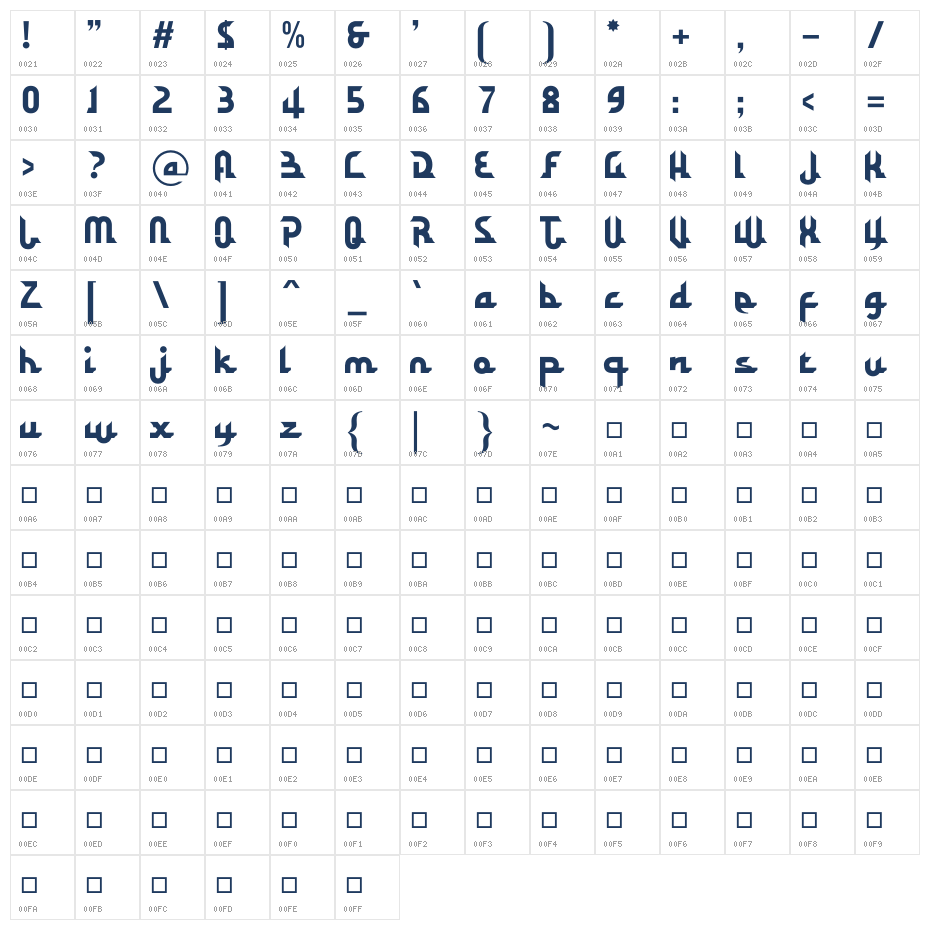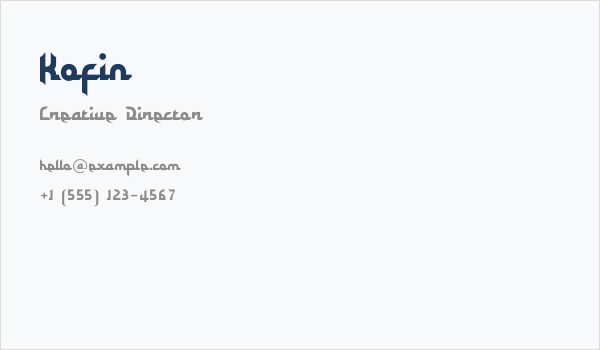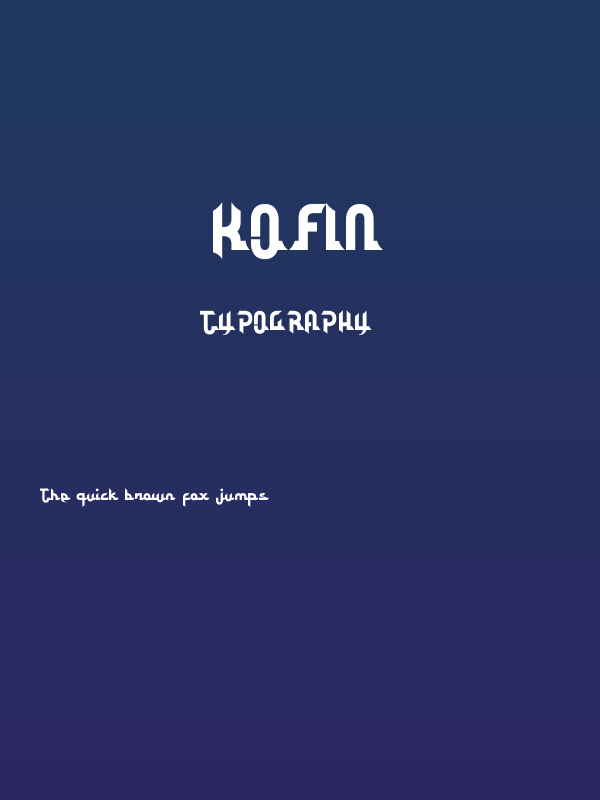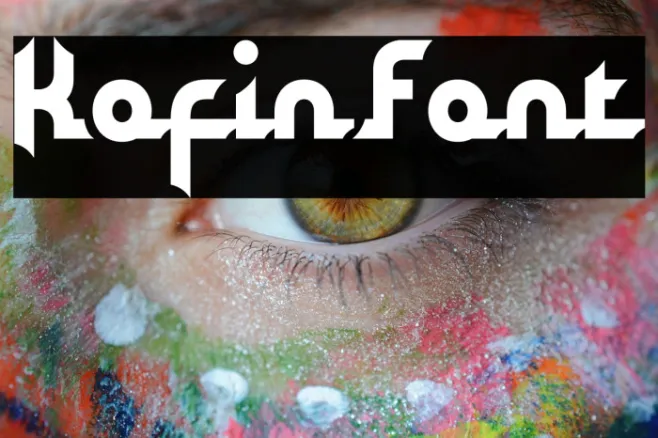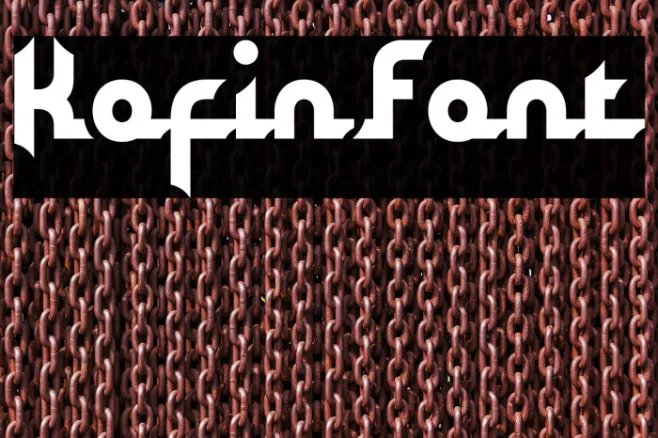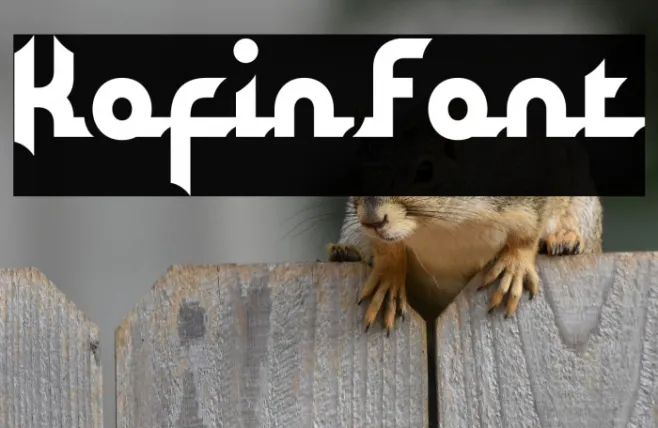
Kofin Font
Kofin Description
A bold, geometric, and stylized display font with sharp angles and a futuristic appearance.
| Overall Style | Modern, Futuristic, Geometric |
| Use Case | Headlines, Logos, Posters, Branding |